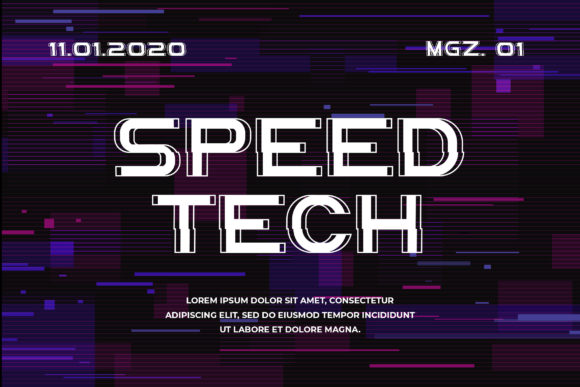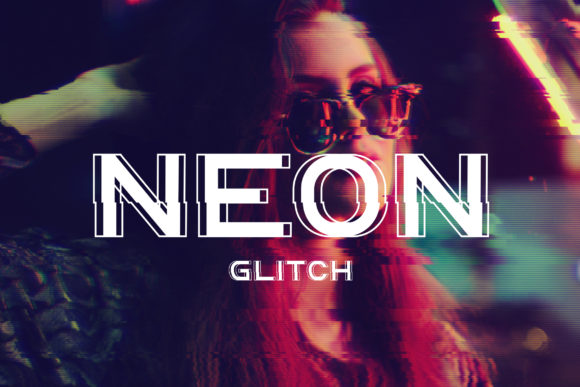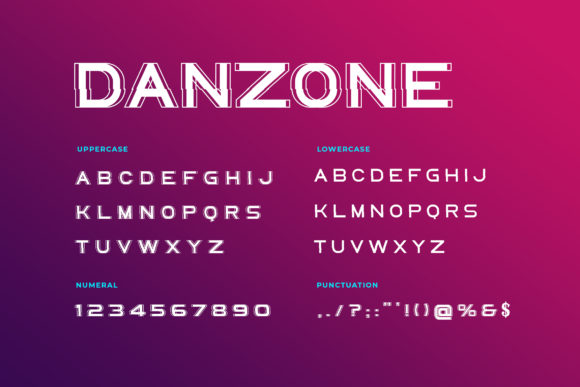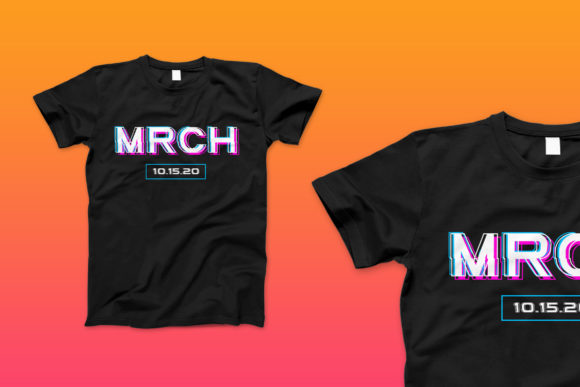
Danzone Font: Elevate Your Designs with a Cool and Modern Display Font
In the world of design, fonts play a crucial role in making your creations stand out. A perfect font can instantly elevate your project, making it more appealing and engaging. If you’re on the hunt for a cool and modern display font that can add a strong visual effect to your designs, look no further than Danzone Font. In this article, we’ll dive into the features and benefits of Danzone Font, and explore how it can take your designs to the next level.
What is Danzone Font?
Danzone Font is a modern and stylish display font that has gained popularity among designers and crafters. Its simple yet bold design makes it perfect for creating eye-catching headlines, titles, and logos. The font’s clean lines and minimalist approach give it a sleek and contemporary look that’s sure to grab attention.
Key Features of Danzone Font
- Simple yet Impactful: Danzone Font’s simplicity is its strength. The font’s clean design makes it easy to read, while its bold lines create a strong visual effect.
- Modern and Trendy: Danzone Font has a distinctly modern feel, making it perfect for designs that require a fresh and contemporary look.
- Versatile: Danzone Font can be used for a wide range of design projects, from logos and branding to posters, flyers, and social media graphics.
- Easily Readable: Despite its bold design, Danzone Font is easy to read, even at smaller sizes.
Benefits of Using Danzone Font
So, why should you choose Danzone Font for your next design project? Here are just a few benefits of using this amazing font:
- Instantly Elevate Your Designs: Danzone Font can instantly add a professional touch to your designs, making them more appealing and engaging.
- Stand Out from the Crowd: With its unique and modern design, Danzone Font can help your designs stand out from the competition.
- Save Time: Danzone Font is easy to use and doesn’t require a lot of effort to integrate into your designs.
- Perfect for Branding: Danzone Font’s bold and modern design makes it perfect for branding and logo design projects.
How to Use Danzone Font in Your Designs
Using Danzone Font in your designs is easy. Here are a few tips to get you started:
- Pair it with Other Fonts: Danzone Font pairs well with other fonts, making it easy to create a unique and visually appealing design.
- Experiment with Colors: Danzone Font looks great in a variety of colors, so don’t be afraid to experiment and find the perfect color scheme for your design.
- Use it for Headlines: Danzone Font is perfect for headlines and titles, where its bold design can make a big impact.
In conclusion, Danzone Font is a cool and modern display font that’s perfect for designers and crafters looking to elevate their designs. Its simple yet bold design makes it easy to use and versatile, while its modern and trendy look ensures that your designs will stand out from the crowd. Whether you’re working on a logo design project, creating a poster or flyer, or simply looking for a font to add a professional touch to your social media graphics, Danzone Font is an excellent choice. So why wait? Try Danzone Font today and take your designs to the next level!